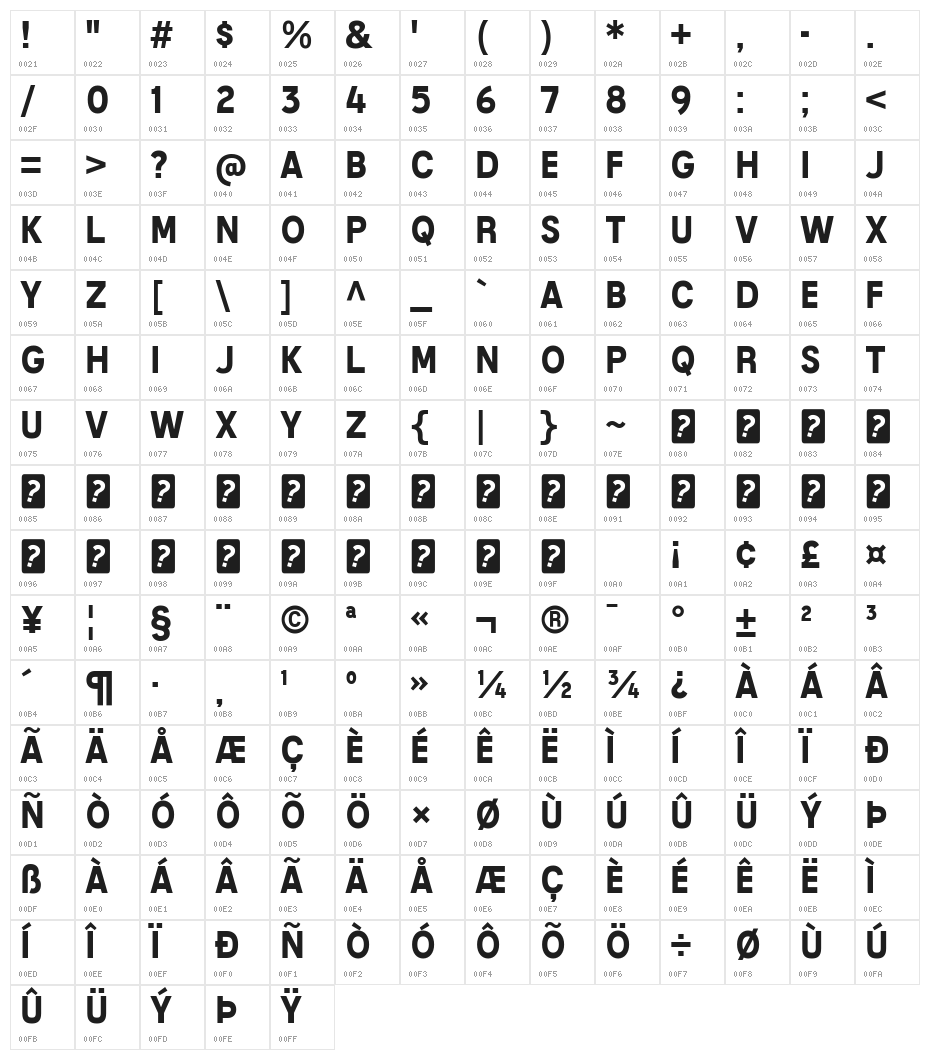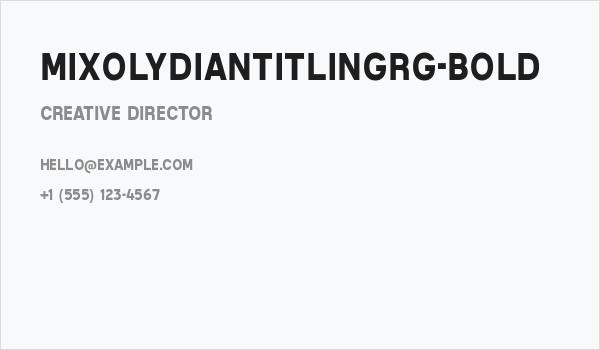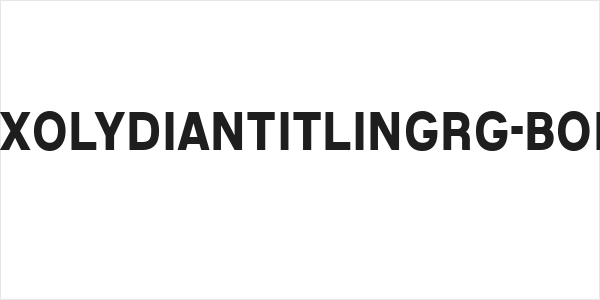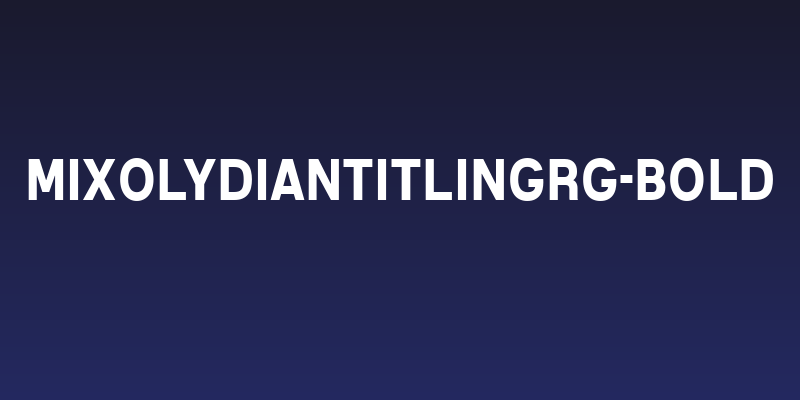
MixolydianTitlingRg-Bold Font
MixolydianTitlingRg-Bold Description
This font features a bold and assertive style, characterized by its thick, uniform strokes and clean lines. The uppercase and lowercase letters are designed with a modern aesthetic, offering a strong visual impact. The numerals are equally bold, ensuring readability and consistency across different uses. Special characters are included, maintaining the same boldness and clarity. The overall design is straightforward and impactful, making it suitable for attention-grabbing headlines and titles.
| Proposed Projects | Ideal for headlines, posters, branding, and advertising materials where a strong, modern presence is required. |